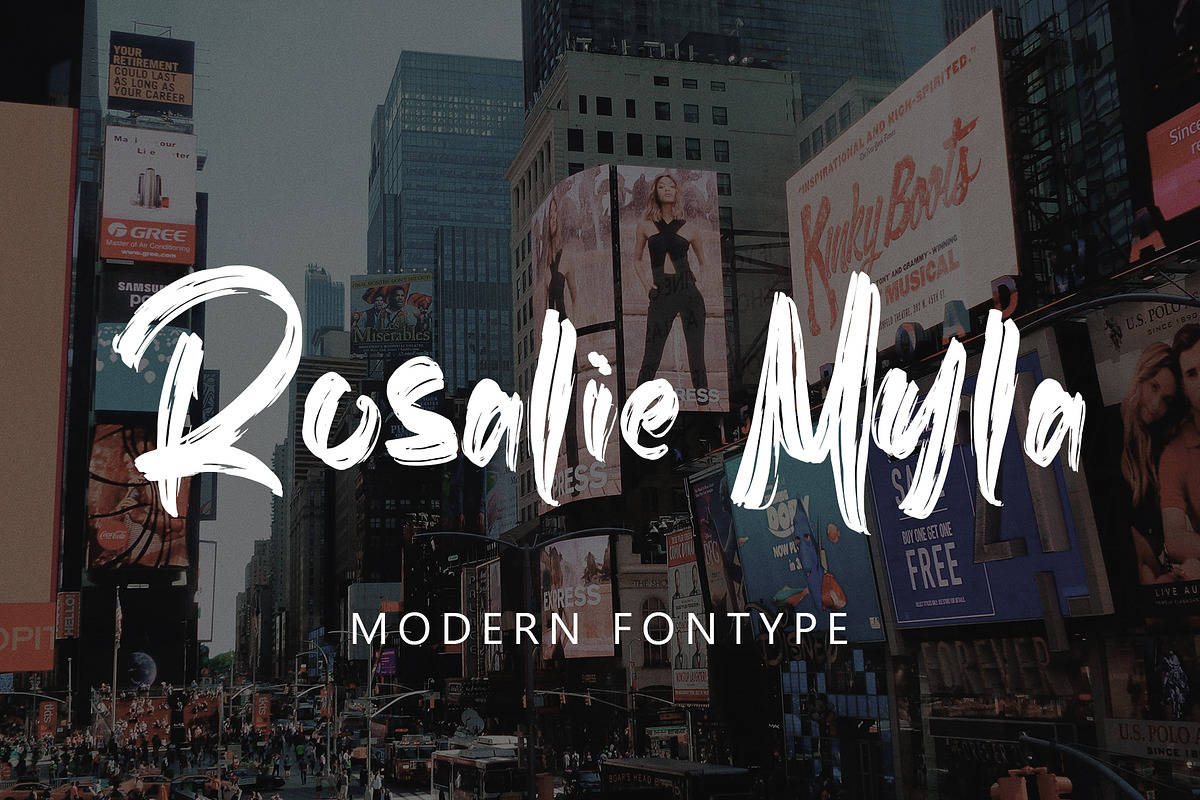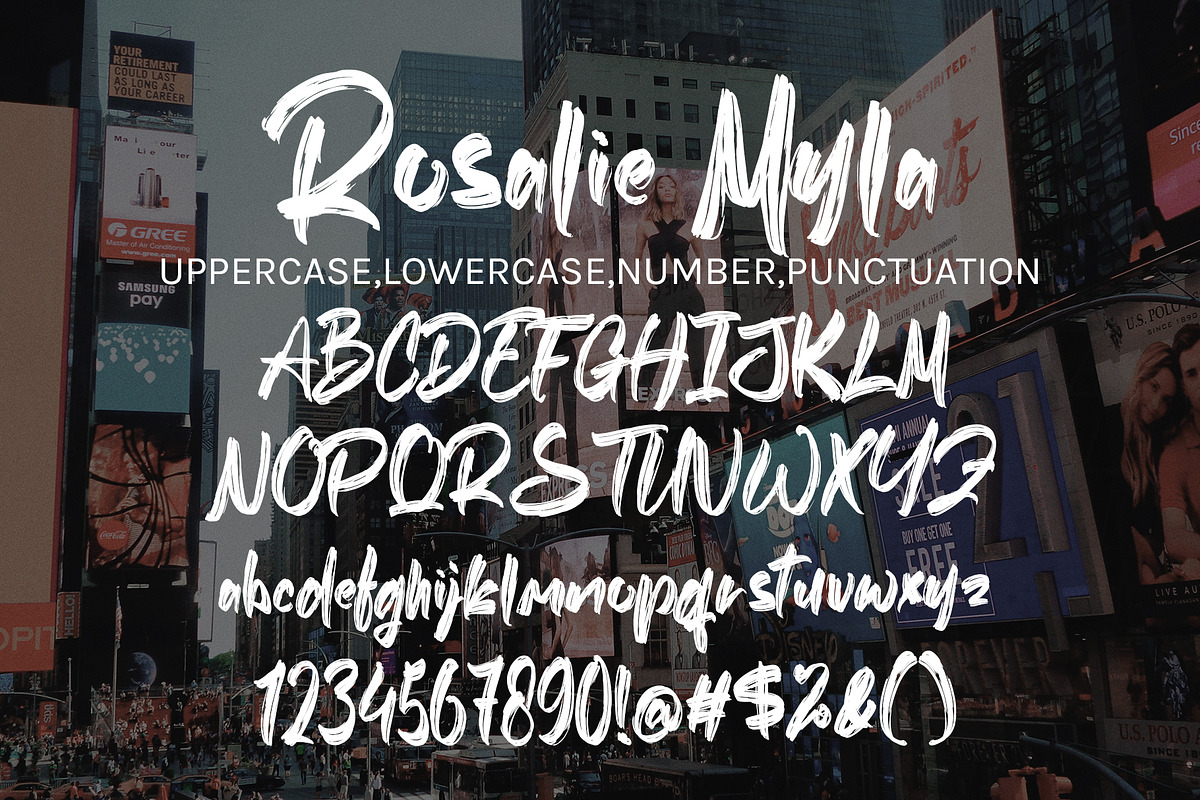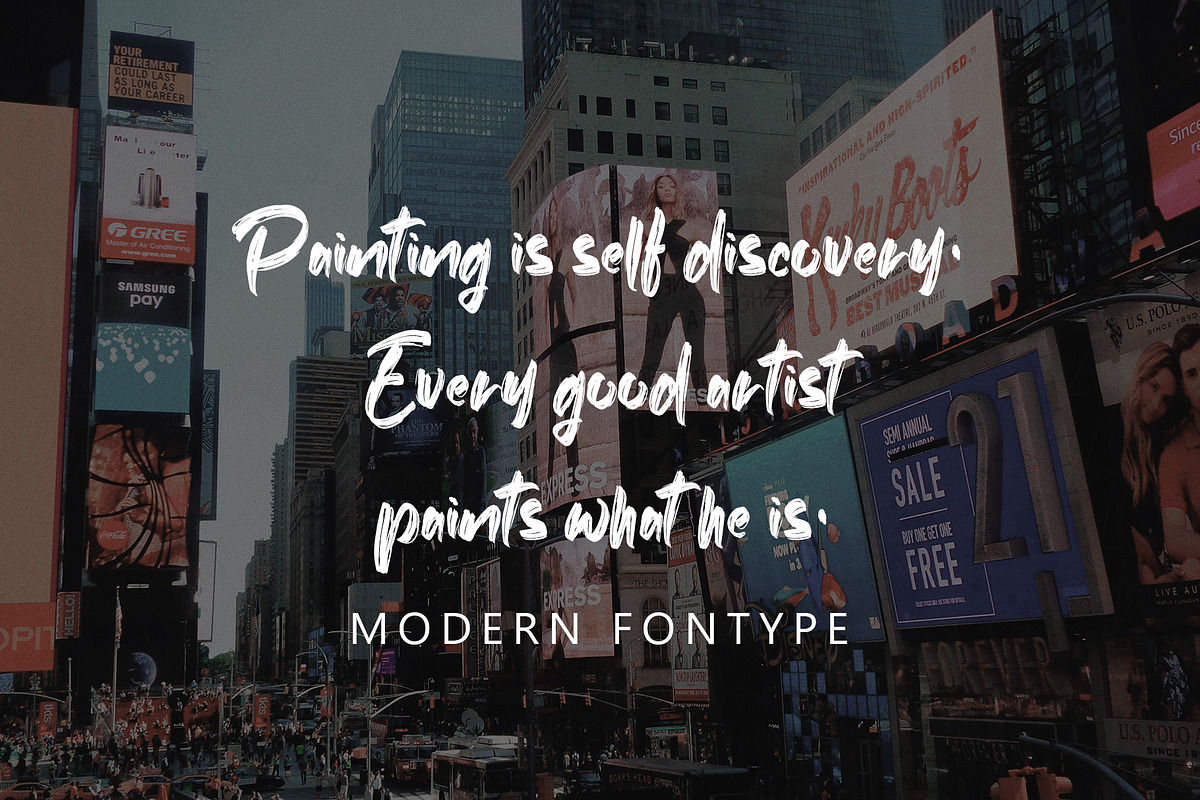
Rosalie Myla
Rosalie Myla with new style, this font will perfect for many different project ex: quotes, logo, blog header, poster, banding, letter, invitation, stationery, etc...